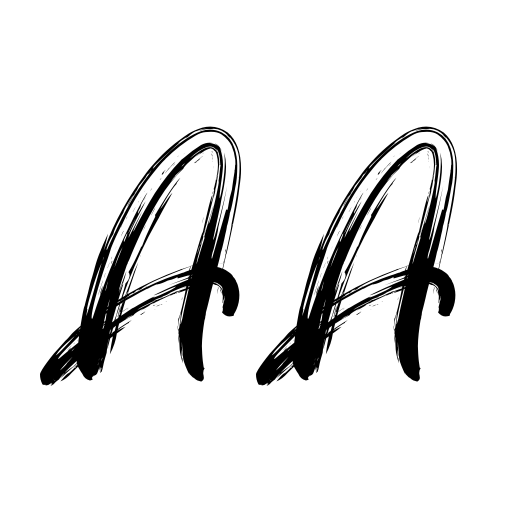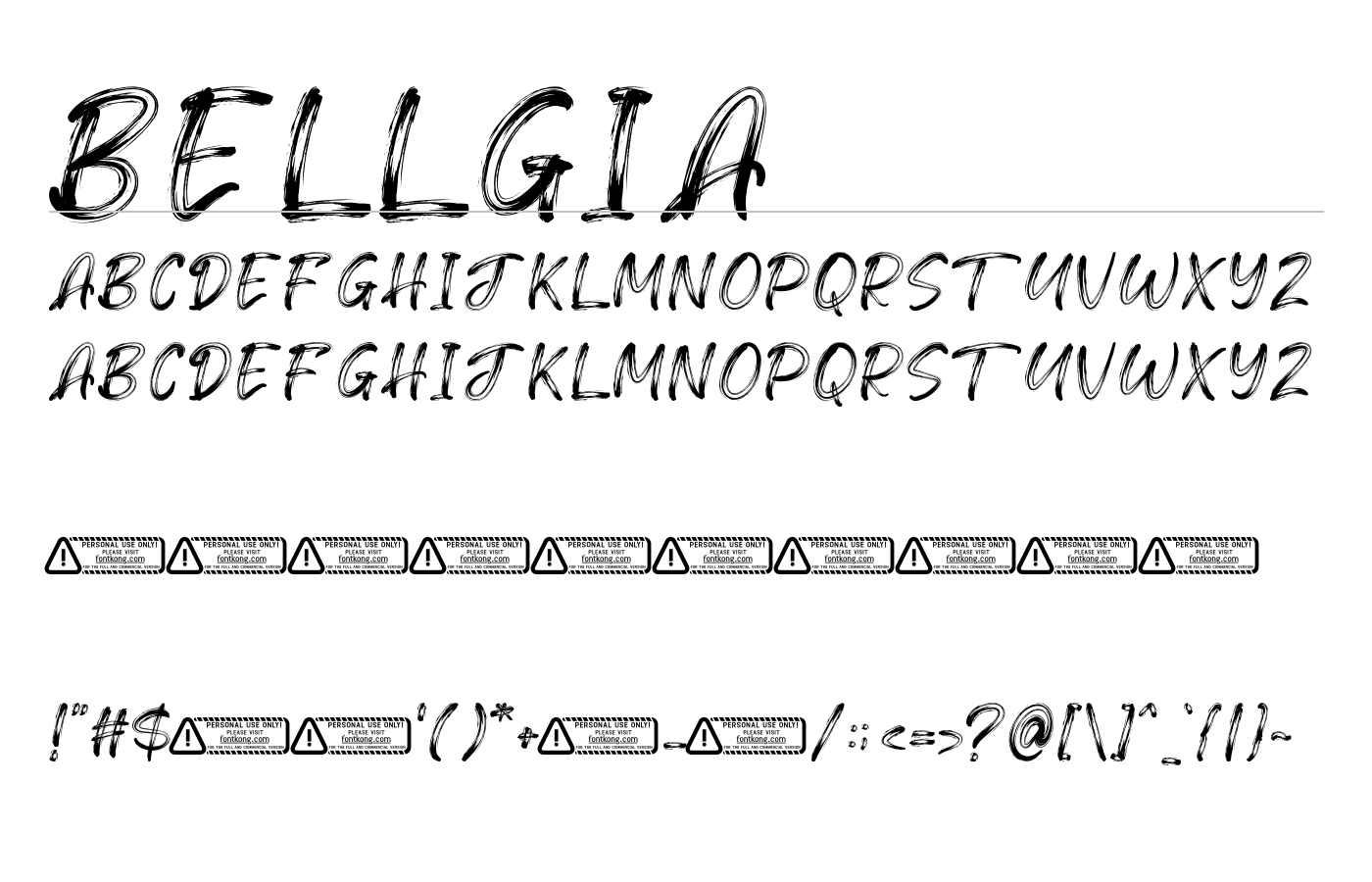
Bellgia is a bold, hand-drawn script font with a dynamic brushstroke style that feels energetic and artistic. Its rough, textured lines and tall, slightly condensed letterforms make it perfect for creative branding, posters, and expressive headlines where a spirited, informal vibe is desired. This font adds a unique, handcrafted touch that stands out in casual or edgy design projects.
Bellgia Font
About Bellgia Font